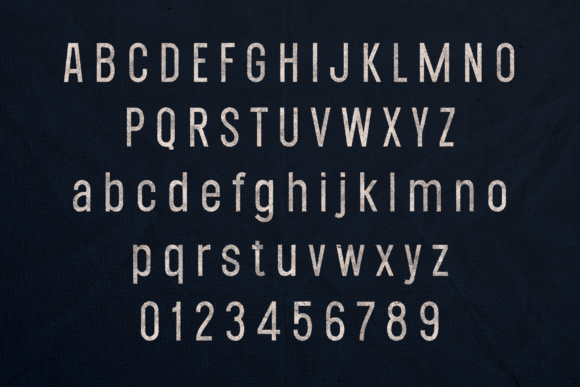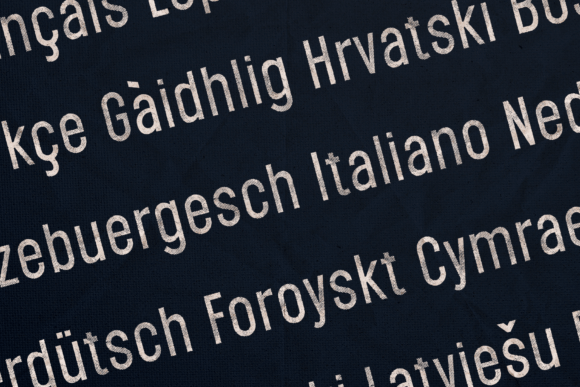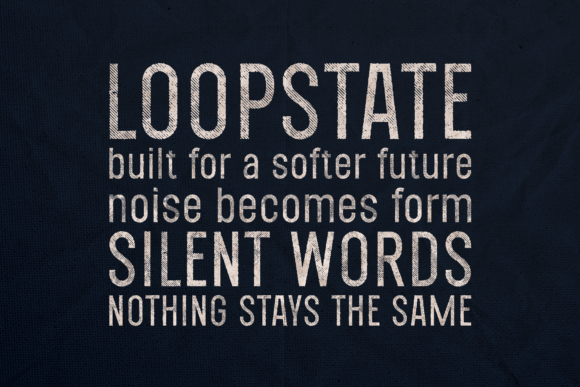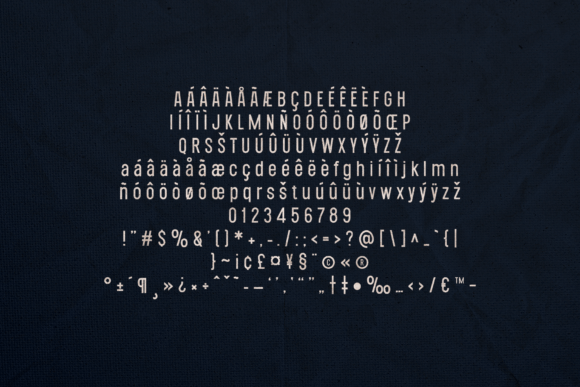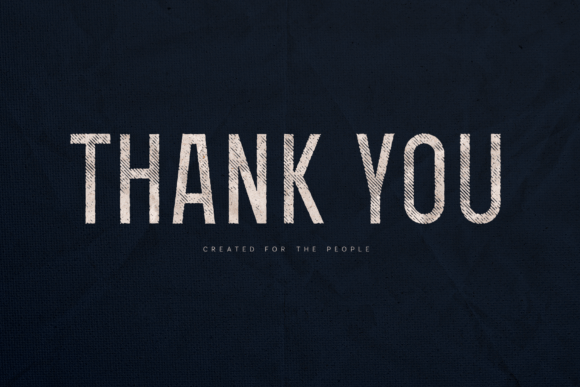
Discover the Bold Statement of Ecliso Font
A Modern Display Font with Personality
Ecliso – Lines Edition is a modern display sans serif font designed for bold statements and graphic-driven typography. Featuring a distinctive lined texture and tall, confident letterforms, Ecliso brings depth, rhythm, and visual energy to contemporary design projects. The Lines Edition adds a handcrafted, sketch-like character while maintaining strong readability and structure.
- ✨ Unique lined texture that adds depth and visual interest
- ✅ Strong readability and structure, even at large sizes
- 🎉 Extensive multilingual support, numerals, punctuation, and symbols
- ⚠️ Some users may find the font too bold or overpowering for certain designs
- 🤔 Limited use of Ecliso at small sizes, as its linear detailing and bold proportions may not be as effective
The Designer Inspiration Behind Ecliso
Ecliso was designed with the goal of creating a font that would bring a sense of raw texture and energy to modern design projects. The designer, inspired by the urban landscape and the world of graphic design, aimed to craft a font that would be both bold and elegant. The result is a font that balances handcrafted charm with clean geometry, making it perfect for designers looking to add a touch of personality to their work.
| Font Name | Ecliso Font |
| What is Ecliso font best used for? | Ecliso is ideal for posters, headlines, branding, album covers, packaging, apparel, and editorial designs that need impact with personality. |
| Is Ecliso suitable for body text? | While Ecliso can be used for body text, it’s primarily designed for display purposes. Its bold and condensed style makes it more suitable for headlines and titles. |
| Is Ecliso available in different weights or styles? | Ecliso – Lines Edition is a single font with a unique lined texture. However, its versatility and range of OpenType features make it suitable for a wide range of design applications. |